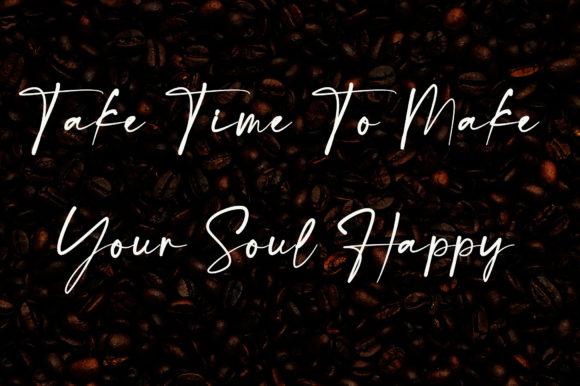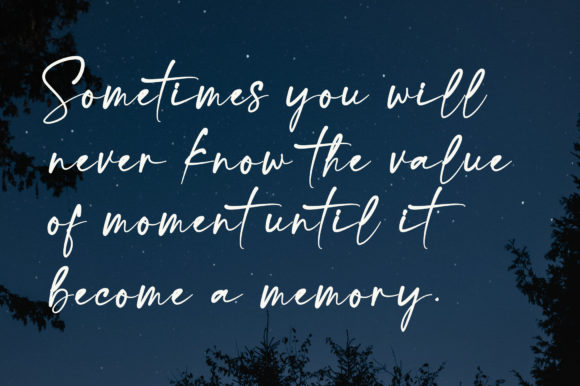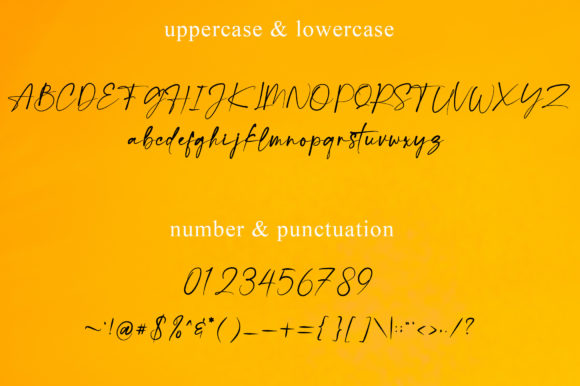
Happy Nurse Font
About Happy Nurse Font
Happy Nurse is a thin and flowing handwritten font. This original style will appeal to a wide range of crafty ideas, from letterheads and titles to stationery. Use this font for any crafting project that requires a personalized look!